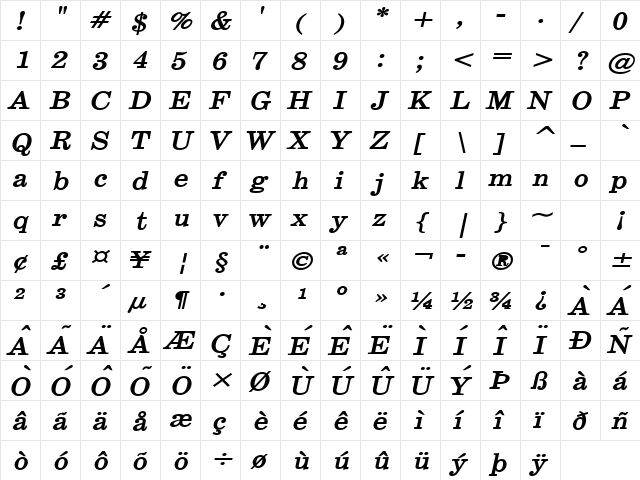
Annual Wide BoldItalic
Design Context for Annual Wide Typeface
Annual Wide is a composed and adaptable typeface that performs quietly and consistently across a wide range of design contexts. Its italic angle brings a sense of urgency and motion to the letterforms. Its bold stroke weight gives it real presence on the page.